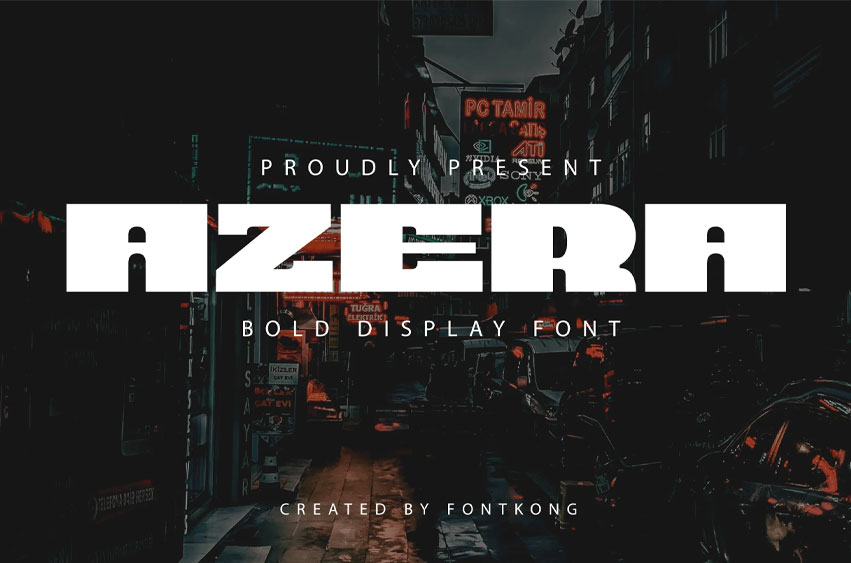
Azera Font is a bold display font crafted to make a powerful impression. With its thick lines, sharp edges, and modern structure, this font is perfect for commanding attention in headlines, posters, branding, packaging, and logo designs. Its bold style ensures maximum readability while delivering a fierce and confident look.
Whether you’re creating impactful titles, edgy graphic designs, or bold marketing materials, Azera provides the strength and style your project needs.